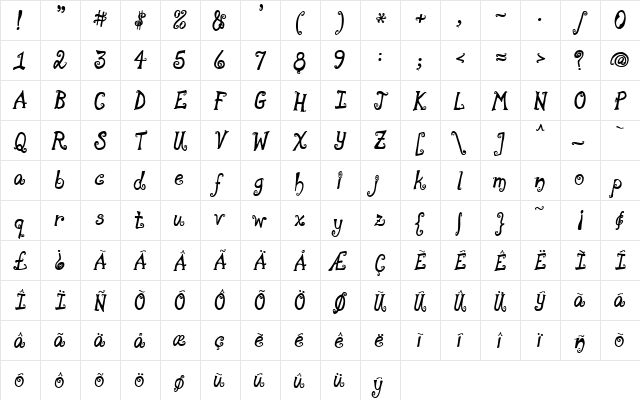
moonpie a la monde Regular Free Font
moonpie a la monde Regular
moonpie a la monde Family
Design Context for moonpie a la monde
moonpie a la monde is a composed and adaptable typeface that performs quietly and consistently across a wide range of design contexts.
Pro Tip: Use moonpie a la monde in both headline and body roles to test its range before committing to a single application.